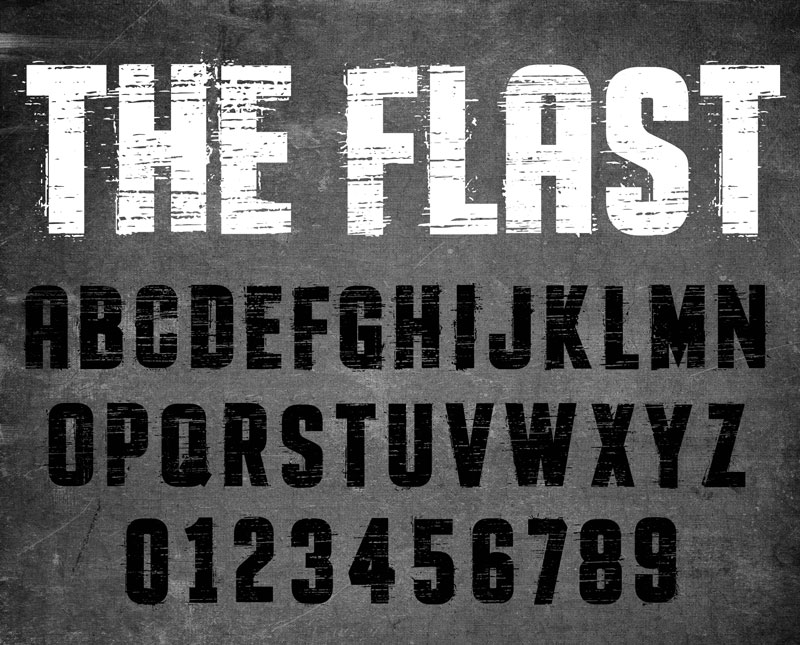
Awasome Fast Looking Fonts References
Awasome Fast Looking Fonts References. 50 free futuristic fonts to help make your designs look uniquely alternative selecting a typeface for a piece that seemingly belongs in the future is exciting. Marishka roseville (otf, ttf, woff) marishka roseville vintage display.
Use it for posters of sports clubs such as track. Every font is free to download! The font is not only.
Domine Font Was Created Specifically For Adobe’s Muse Software.
By the branded quotes american captain by the fontry billy ohio by alit design sheeping cats by. The megawatt font, one of the modern fonts has an electric and shiny quality to it. Browse categories such as calligraphy, handwriting, script, serif and more.
Ta modern times is a 2021 release by tural alisoy and is great for branding as well. Download 73000 fonts for windows and mac. This calligraphic design is hip, young, and elegant.
Stella includes two font files and is free for personal usage. This font family is perfect for anyone looking to have a lot of. This free serif font was inspired by the various fonts used.
This font is suitable for website headers, children’s magazine covers, and even comic. Here’s how the font generator works: The font is not only.
Slipstream Font It's A Decorative Font That Comes With An Elegant Fancy Appearance.
This beautifully elegant and minimal font is completely free for you to use with your personal and commercial projects. The black turtleneck of all modern fonts, it’s timeless, clean, and sharp. This font can create a very cute look for your projects.